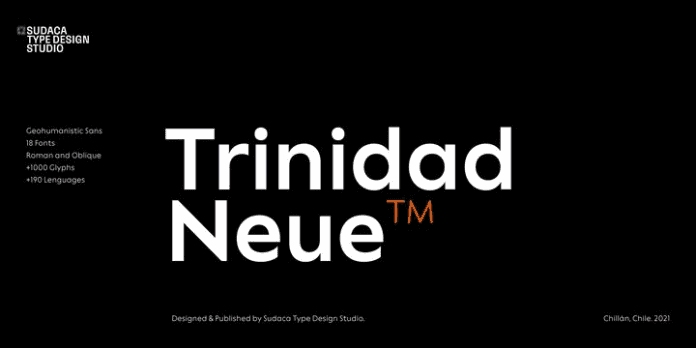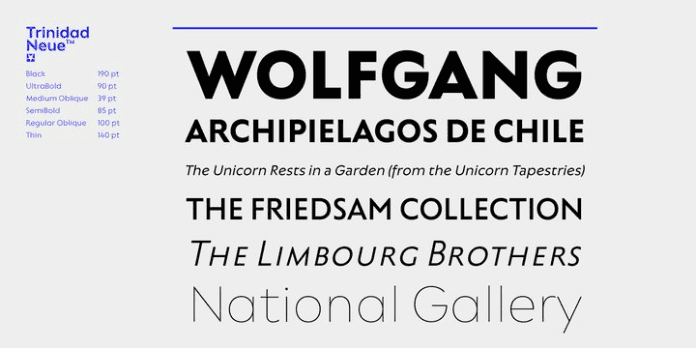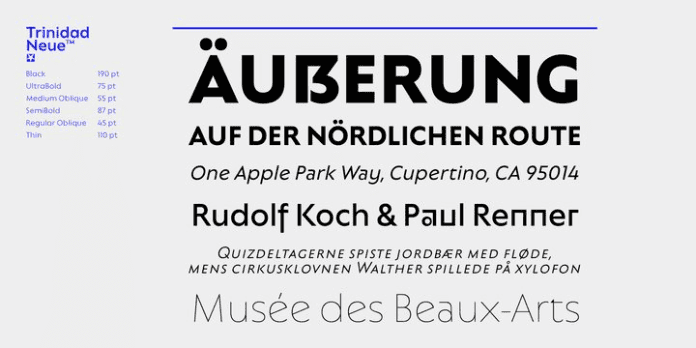
Trinidad Neue Sans Serif Font Family was designed in Chilean Type Design Studio Sudaca by an experiment comparing classical Roman proportions (Trajan Columns) with Futura by Paul Renner capital letters, in an attempt to craft an original Sans Serif interpretation of classic proportions. I began working on letters such as H, A N O R S in my search.